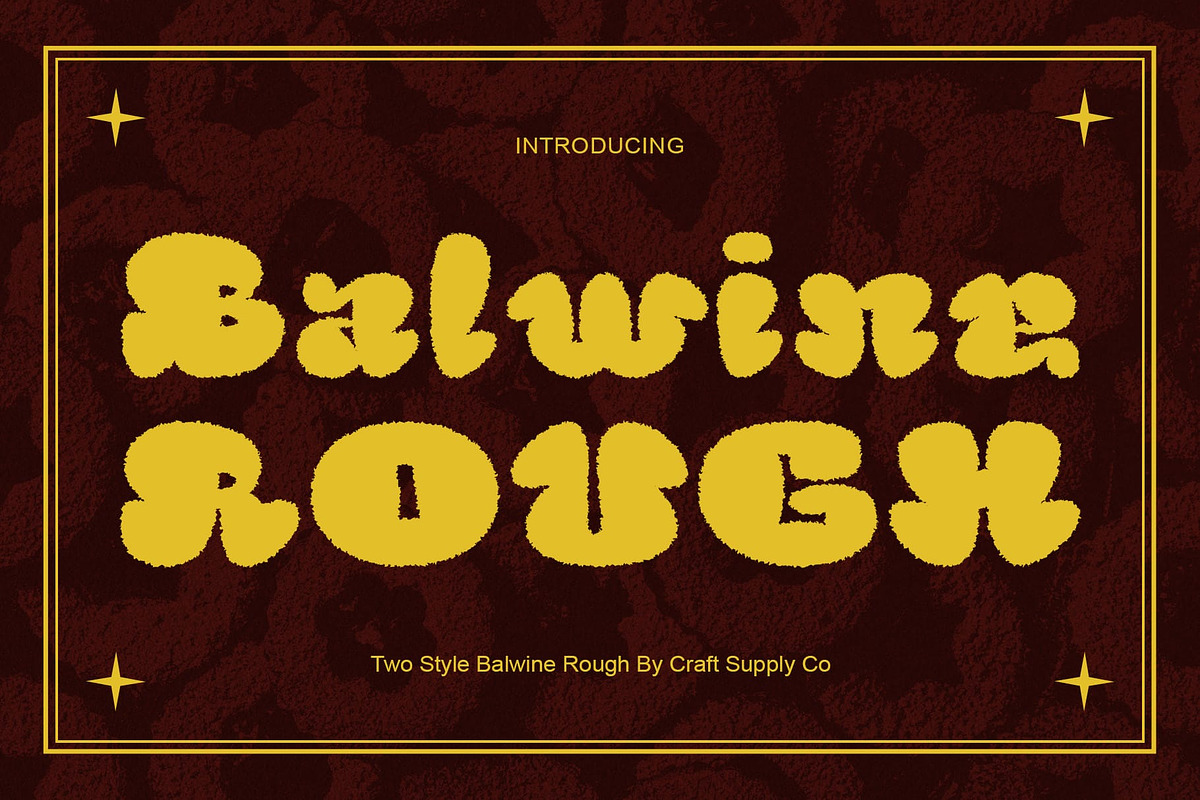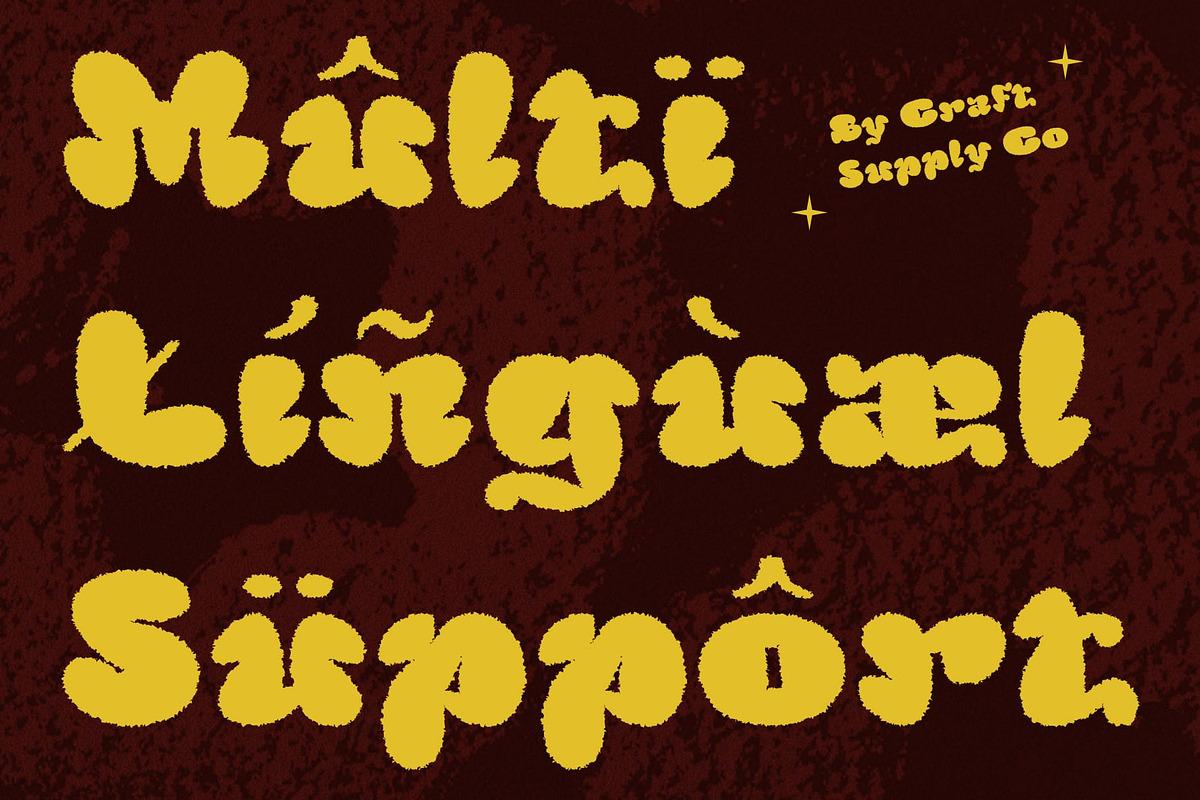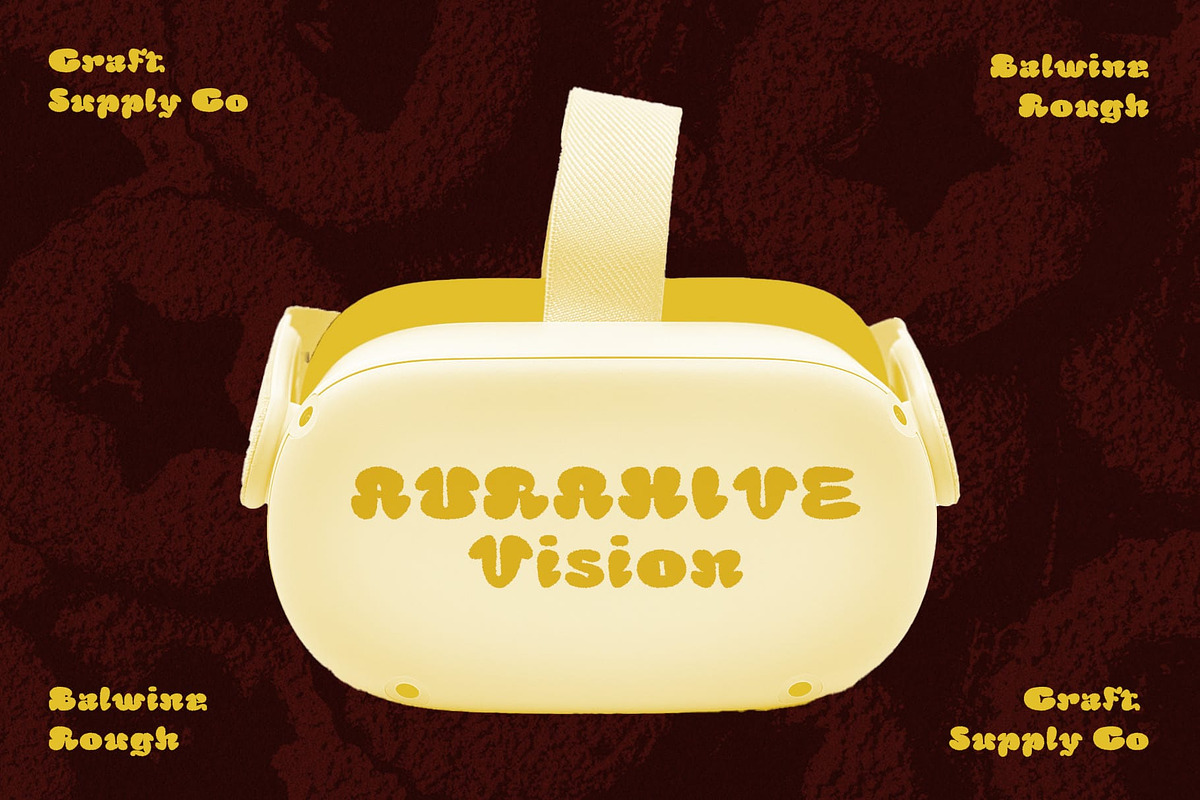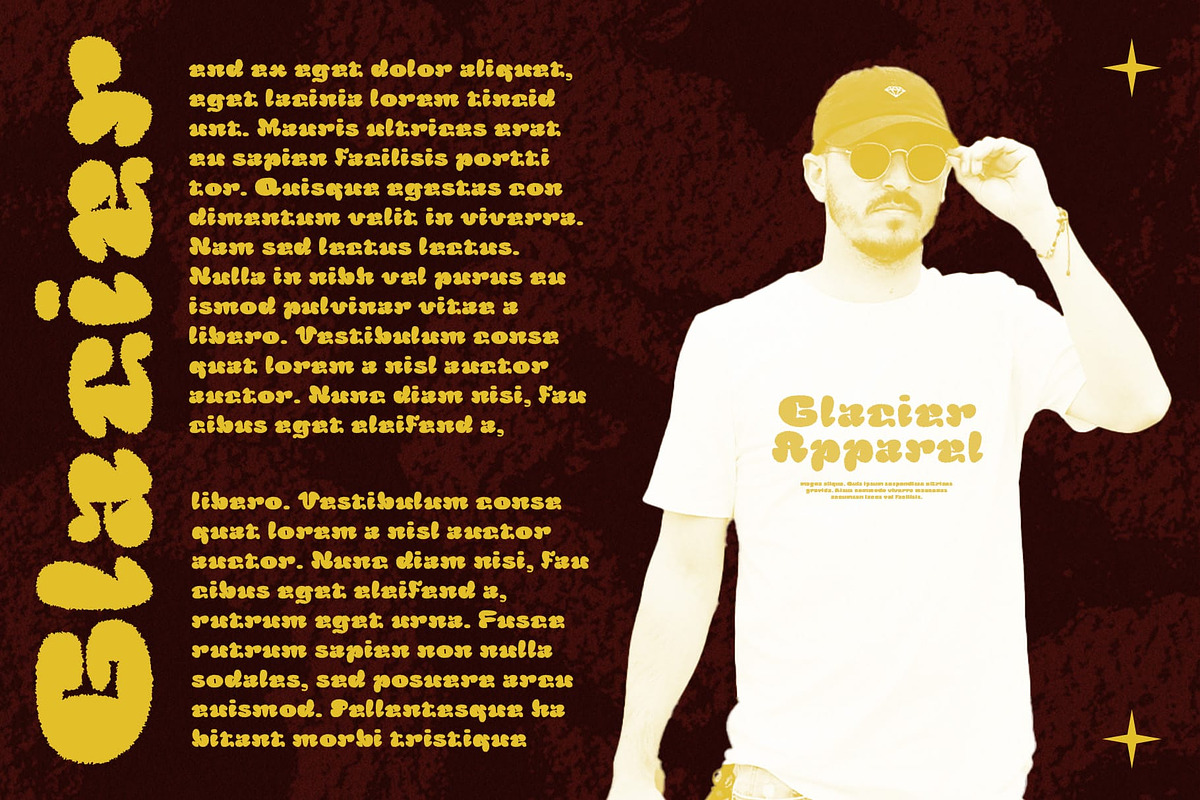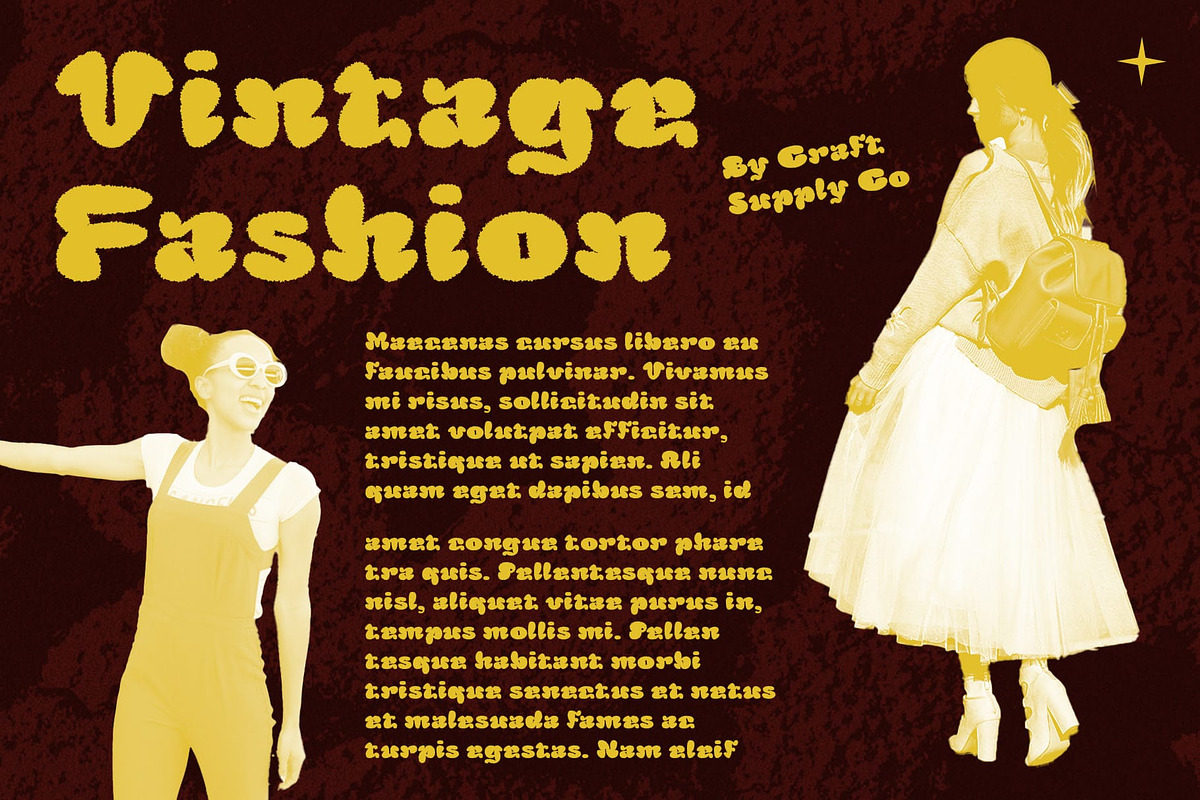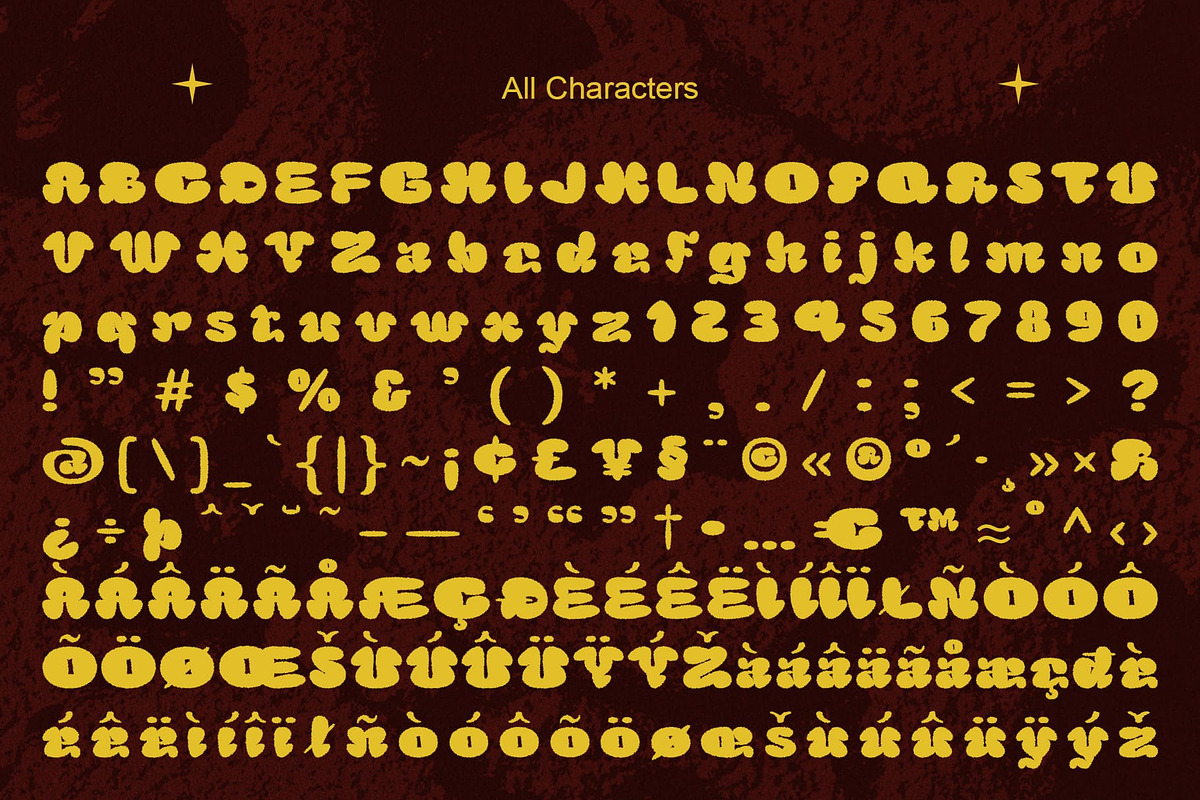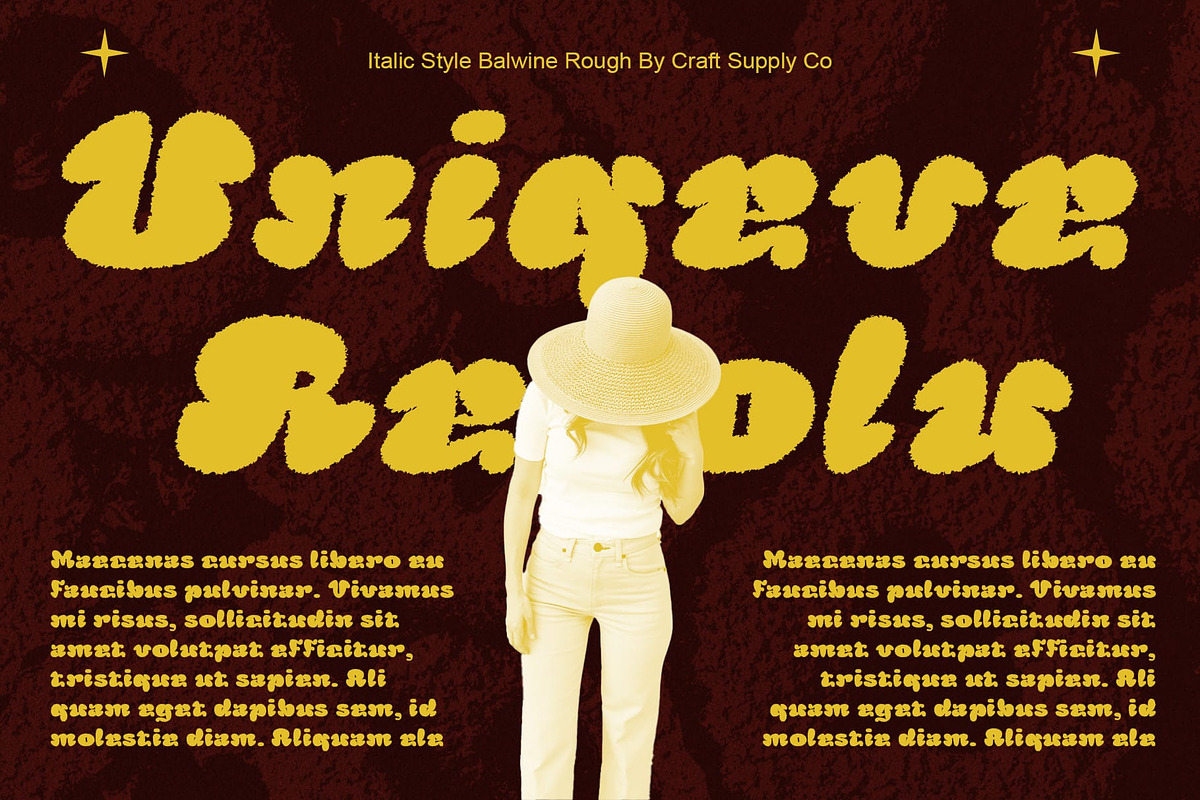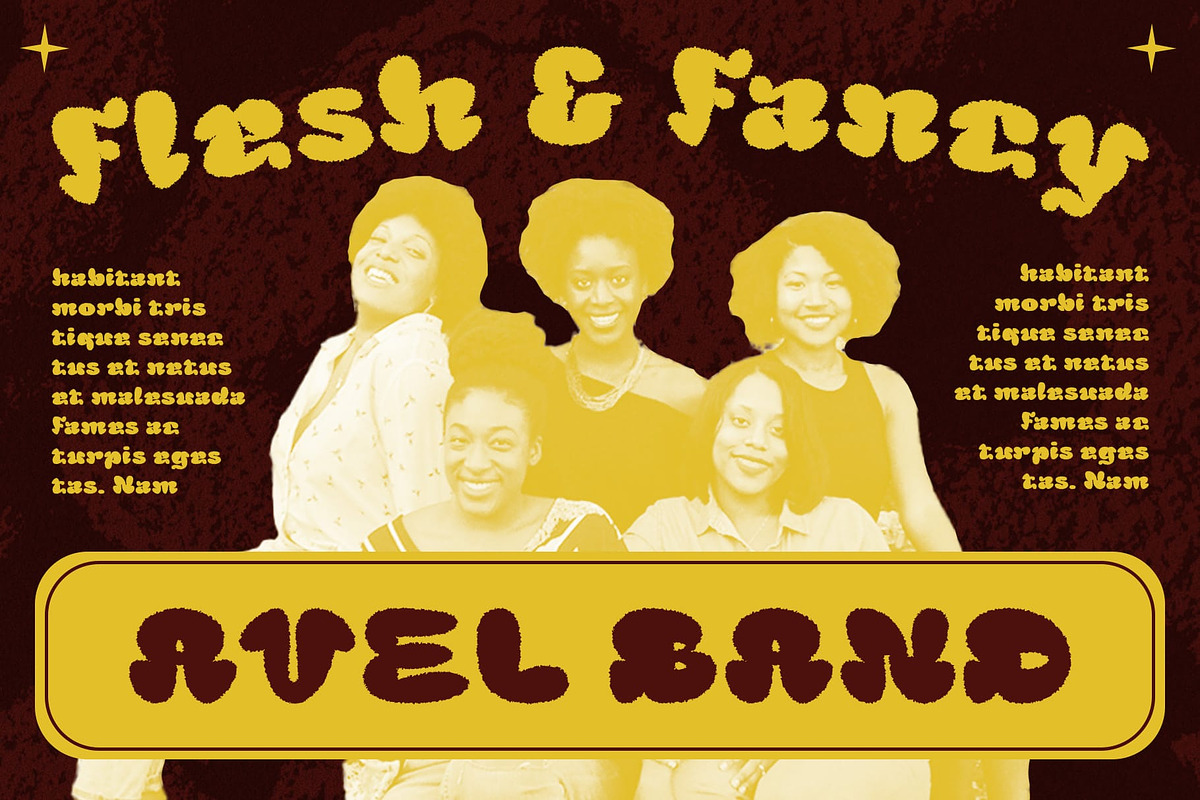
Balwine Rough
Balwine Rough: Graffiti Bubble Display Font
Inspired by Graffiti Art Balwine Rough takes inspiration from the vibrant world of graffiti bubble lettering. Its playful balloon-shaped characters capture the energetic and expressive nature of street art.
Rough and Raw Aesthetic With its rough texture and raw aesthetic, This font brings an edgy vibe to any display project. The distressed effect adds character and authenticity, reminiscent of graffiti sprayed onto urban walls.
Perfect for Display Needs Tailored for display purposes, This font excels in grabbing attention and making a bold statement. Whether used for posters, headlines, or social media graphics, its eye-catching appearance ensures maximum impact.
Versatile and Expressive Despite its graffiti-inspired roots, This font offers versatility in expression. From playful and casual to bold and dynamic, it adapts to various design contexts, adding personality and flair.
Street Art Typography Reimagined This font reinvents street art typography for the digital age. With its graffiti bubble-inspired design and rough texture, it injects a dose of urban coolness into display projects, making them stand out with boldness and authenticity. Step into the world of This font and unleash your creativity with vibrant and expressive typography.
- Balwine Rough Regular
- Balwine Rough Italic